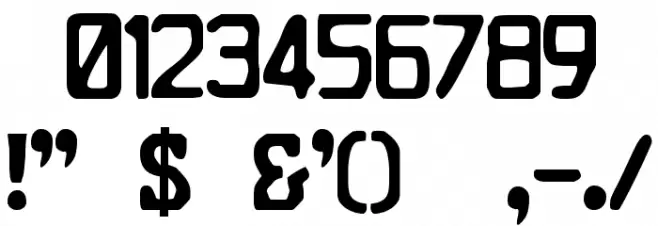
Iconified Font
Iconified Description
This font features a bold and playful design with a unique, slightly rounded and irregular shape to each character. The uppercase letters are robust and have a strong presence, while the lowercase letters maintain a consistent style with a touch of whimsy. The numbers are clear and bold, matching the overall aesthetic. Special characters are creatively integrated, adding to the font's distinctive look. The font's style is reminiscent of vintage signage or playful branding, making it suitable for projects that require a fun and eye-catching appearance.
| Overall Style | Vintage, Playful |
| Proposed Projects | Ideal for branding, posters, children's books, and playful packaging designs. |